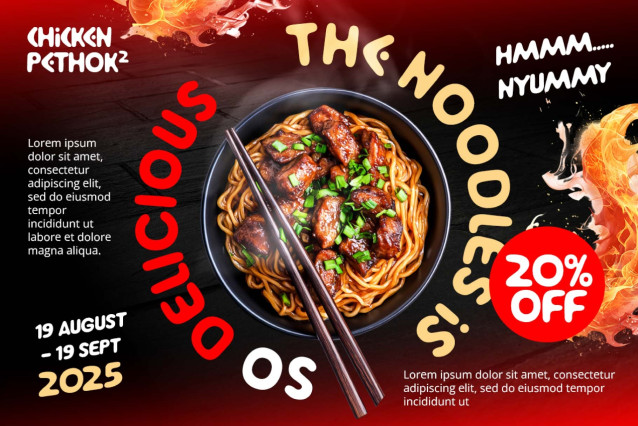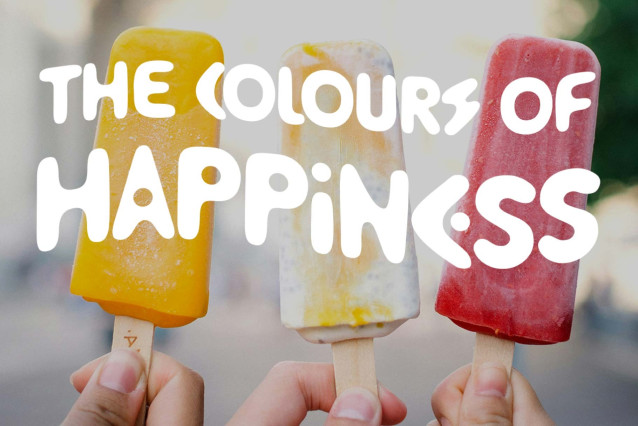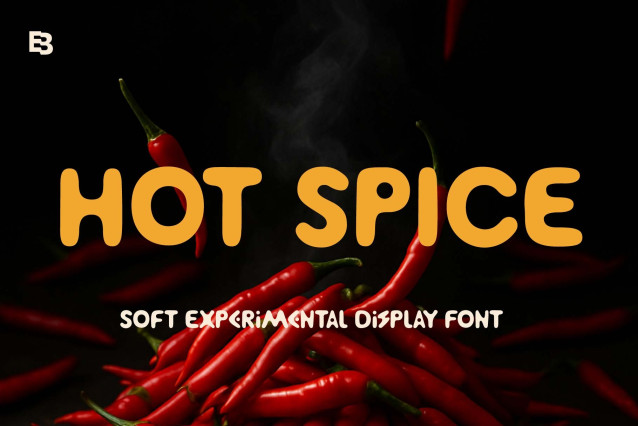
Hot Spice Display Font
Hot Spice Display Font is a soft experimental display font crafted in all caps, designed to ignite visual warmth and bold personality. Its rounded yet expressive shapes create a unique balance between friendly and striking, making it perfect for brand identities, product packaging, and creative advertising. With its distinctive curves and confident form, Hot Spice adds a flavorful twist to any food and beverage theme — from spicy snack brands to artisanal drinks. Whether used in logos, headlines, or promotional materials, this font instantly evokes energy, taste, and memorability.